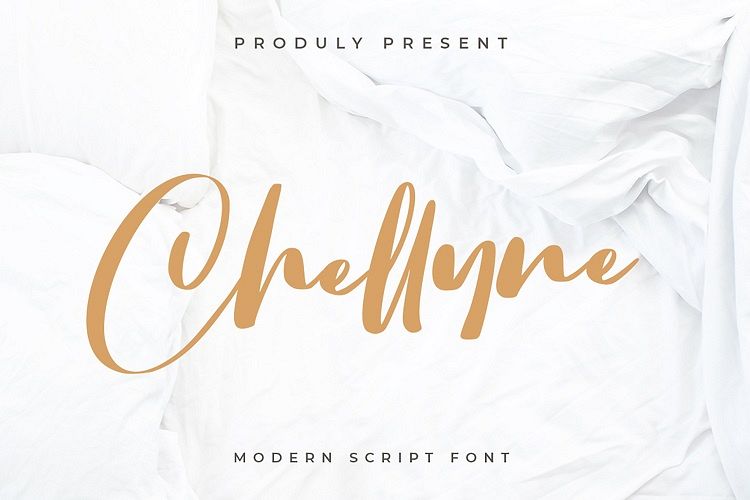
Chellyne - Modern Script Font
Chellyne
Introducing Chellyne - Modern Script Font
Chellyne is a sweet, soft hand-lettered handwritten font. Fall in love with its authentic feel and use it to create gorgeous wedding invitations, beautiful stationary art, eye-catching social media posts, and cute greeting cards.
This Font Template contains Modern, Elegant, creative, Professional and Unique Concept.